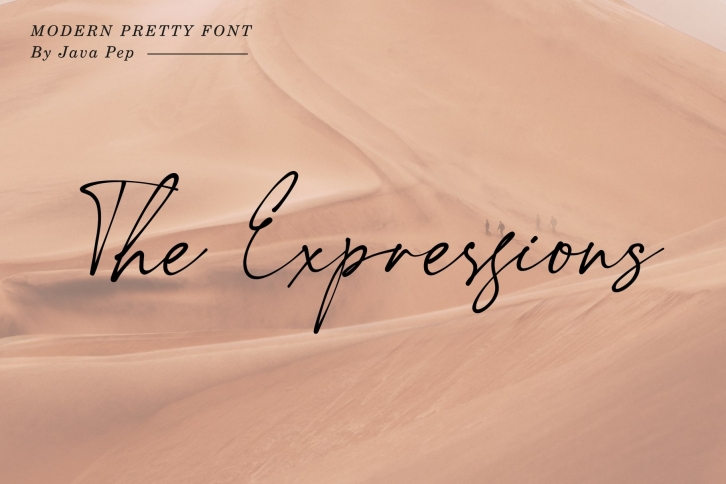
The Expressions modern pretty is a great font that was designed by JavaPep. Imagine the amount of combinations you can create using this font! The archive is 18.87 MB and it was released on February 20, 2020. The Expressions modern pretty looks beautiful on wedding invitations, greeting cards, logos, posters, labels, t-shirt designs, logos, business cards and is perfect for use in ink or watercolor works, fashion, magazines, packaging and food menus, children's books and more!